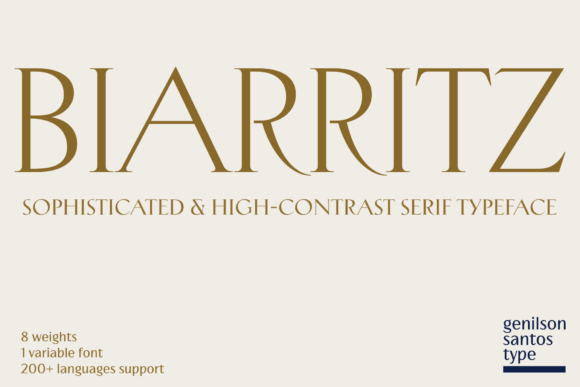
The Ultimate Luxury Font: Biarritz and Its Endless Design Possibilities
Have you ever been in the middle of a design project, and suddenly, it hits you – the font you’ve been using just isn’t cutting it? You’re striving for that perfect blend of sophistication and elegance, but your current typeface just doesn’t exude the luxury vibe you’re going for. I recall working on a high-end fashion brand project, and no matter how hard I tried, I just couldn’t find the right font to capture the essence of their brand. That’s when I stumbled upon Biarritz, a game-changing, high-contrast serif typeface that’s been a revelation in my design journey.
Unpacking Biarritz: A Designer’s Delight
Biarritz is more than just a font; it’s an experience. Inspired by high-fashion aesthetics and classic European elegance, this sophisticated typeface features razor-thin hairlines paired with graceful, sweeping curves. It’s the epitome of “quiet luxury,” making it perfect for logos, editorial headers, and high-end packaging that demands a touch of prestige.
What I Love About Biarritz ✨
- 💯 Elegant Design: Biarritz’s high-contrast features and sleek lines make it a stunning addition to any design project.
- ✅ Versatility: Whether you’re working on a logo, editorial headers, or packaging, Biarritz adapts seamlessly.
- 🔍 Attention to Detail: The font’s intricate details and beautiful curves showcase a high level of craftsmanship.
- 💻 Easy to Read: Despite its elegant and high-contrast nature, Biarritz remains surprisingly legible, even at smaller sizes.
- ⚠️ Not Ideal for Body Text: Due to its high-contrast nature, Biarritz might not be the best choice for lengthy body text. It’s best used for headlines and titles.
- ⚠️ Limited Use in Casual Contexts: Biarritz’s luxurious feel might not fit well with more casual or playful design projects. Use it where elegance is key.
The Story Behind Biarritz: Designer Inspiration
Biarritz was inspired by the timeless elegance of European luxury and the sophisticated aesthetics of high-fashion. The designer aimed to create a typeface that embodies quiet luxury, perfect for brands and creators seeking to make a statement with elegance and refinement. The result is a font that exudes sophistication and poise, ideal for projects that demand the highest level of prestige.
Q: What makes Biarritz suitable for luxury brands?
A: Biarritz’s high-contrast design, elegant lines, and sophisticated feel make it perfect for luxury brands looking to convey exclusivity and refinement.
Q: Can Biarritz be used for body text?
A: While Biarritz is stunning for headlines and titles, its high-contrast nature may not be ideal for lengthy body text. It’s best used for display purposes.
Q: Is Biarritz compatible with OpenType features?
A: Yes, Biarritz supports OpenType features, allowing you to access stylistic alternates, ligatures, and glyphs to enhance your designs.